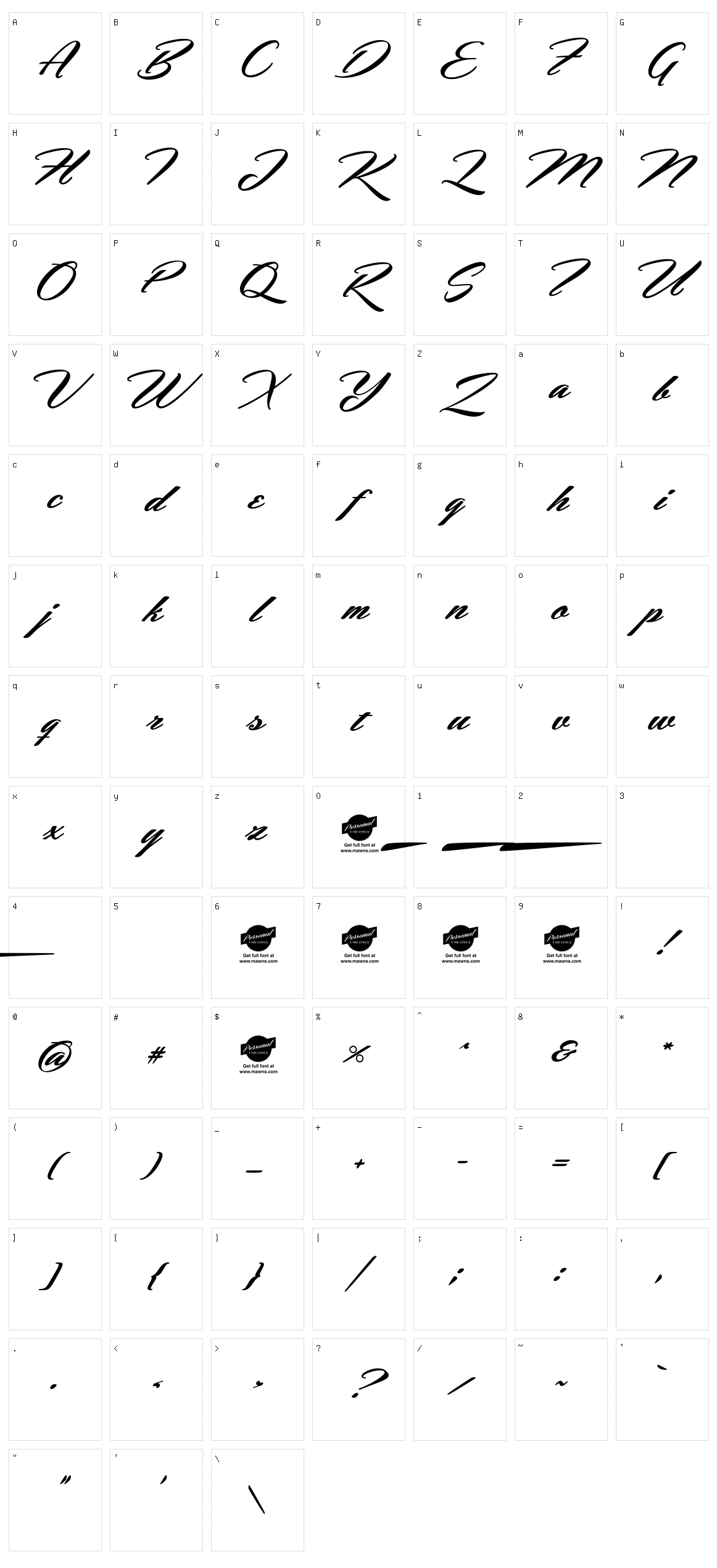
The free font Hemmet is carefully designed by Mans Greback, showcasing a thoughtful balance of creativity and usability and falls under the Old-School font style. When you download the ZIP file, it contains only 515.16 KB of font files, making it lightweight and quick to download. Please review the license details below to understand permitted usage and distribution rights. If license information is not available, we recommend using this font for personal projects only or contacting the author directly for commercial usage permissions.